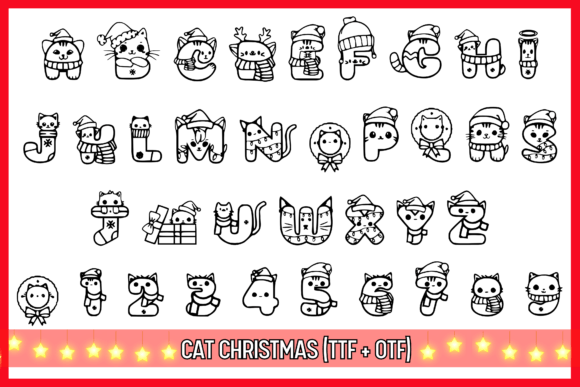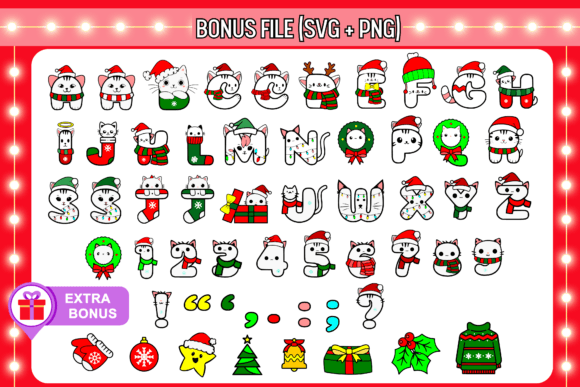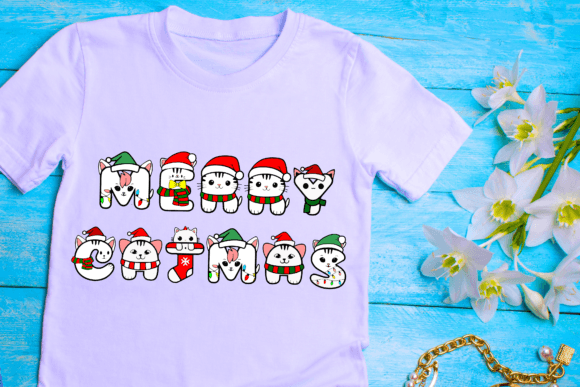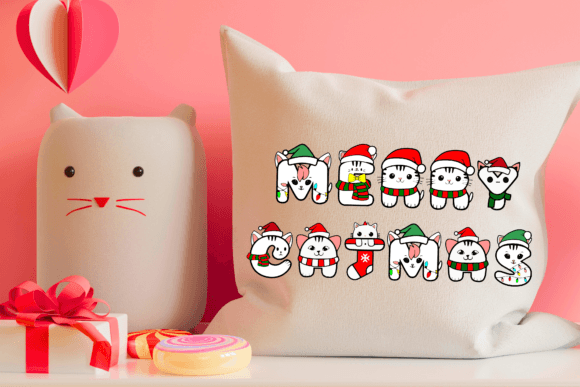
Introducing the Purrfect Addition to Your Holiday Projects: Cat Christmas Font
Are you looking for a fun and unique way to add some festive cheer to your holiday cards, decorations, and projects? Look no further than the Cat Christmas Font! This delightful font features adorable winter cat designs for each letter, complete with fluffy tails and little paws. It’s the perfect way to bring a touch of whimsy and playfulness to your holiday creations.
What is Cat Christmas Font?
Cat Christmas Font is a decorative font that has been carefully designed to bring a smile to your face. Each letter has been meticulously crafted to resemble a cute winter cat, complete with intricate details like snowflakes, holly leaves, and festive hats. The font is perfect for designers, crafters, and anyone looking to add a personal touch to their holiday projects.
Key Features of Cat Christmas Font
- Adorable Winter Cat Designs: Each letter is designed to look like a cute winter cat, complete with fluffy tails and little paws.
- Playful and Whimsical: The font has a playful and whimsical feel, making it perfect for holiday cards, decorations, and projects.
- Festive Details: The font features intricate details like snowflakes, holly leaves, and festive hats, adding to the holiday cheer.
Uses for Cat Christmas Font
Cat Christmas Font is a versatile font that can be used for a variety of holiday projects, including:
- Holiday Cards: Add a personal touch to your holiday cards with this adorable font.
- Decorations: Use the font to create festive decorations, such as garlands, banners, and signs.
- Party Invitations: Create fun and playful party invitations that set the tone for a festive holiday party.
- Social Media Graphics: Use the font to create engaging social media graphics that spread holiday cheer.
Tips for Using Cat Christmas Font
Here are some tips for getting the most out of Cat Christmas Font:
- Experiment with Colors: Try pairing the font with different colors and textures to add depth and interest to your projects.
- Mix and Match: Combine the font with other holiday fonts and graphics to create a unique look.
- Pay Attention to Details: Take the time to adjust the font size, spacing, and alignment to ensure that your project looks its best.
Cat Christmas Font is a fun and decorative font that’s purrfect for adding a touch of holiday cheer to your projects. With its adorable winter cat designs, playful details, and ease of use, it’s a must-have for designers and crafters looking to create festive and engaging holiday content. So why wait? Download Cat Christmas Font today and start creating your own purrfect holiday projects!
- Q: What type of projects can I use Cat Christmas Font for?
A: Cat Christmas Font can be used for a variety of holiday projects, including holiday cards, decorations, party invitations, and social media graphics.